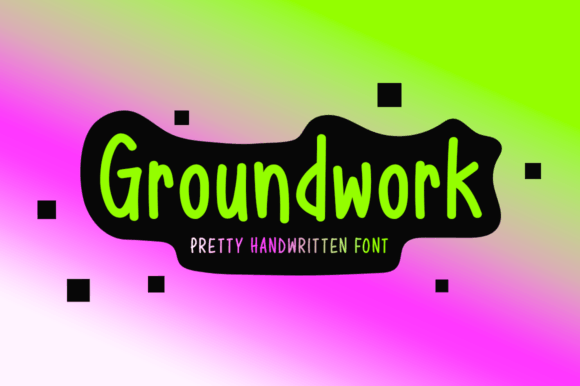
Introducing Groundwork Font: The Ultimate Handwritten Font for Modern Design
In the world of typography, a new font has emerged that is taking the design community by storm. Groundwork Font is a newly created, exquisitely crafted handwritten font that embodies style and originality. This flexible font is a fantastic option for both digital and print design needs because it works well for a broad range of projects. From stationery and logos to t-shirts, print materials, website headers, posters, album covers, and even picture frames, Groundwork Font is the perfect choice for designers looking to add a touch of elegance and sophistication to their work.
Key Features of Groundwork Font
- Handwritten Style: Groundwork Font boasts a beautiful, handwritten style that adds a personal touch to any design project.
- Flexibility: This font is incredibly versatile and can be used for a wide range of projects, from digital designs to print materials.
- Originality: Groundwork Font is a unique and original font that will help your designs stand out from the crowd.
- Elegance: The font’s elegant and refined style makes it perfect for designs that require a touch of sophistication.
Design Applications for Groundwork Font
Groundwork Font is an incredibly versatile font that can be used for a wide range of design applications. Here are some of the many ways you can use this font:
- Stationery: Use Groundwork Font to create beautiful and elegant stationery, including letterheads, envelopes, and business cards.
- Logos: This font is perfect for creating unique and memorable logos that will help your brand stand out.
- T-Shirts: Groundwork Font can be used to create stunning t-shirt designs that will appeal to anyone who loves elegant typography.
- Print Materials: Use this font to create eye-catching print materials, including brochures, flyers, and posters.
- Website Headers: Add a touch of elegance to your website with Groundwork Font, perfect for headers and titles.
- Posters: This font is perfect for creating stunning posters that will grab attention and leave a lasting impression.
- Album Covers: Use Groundwork Font to create beautiful and eye-catching album covers that will stand out in a crowded music market.
- Picture Frames: Add a touch of elegance to your picture frames with Groundwork Font, perfect for creating beautiful and unique gifts.
Typography Tips for Using Groundwork Font
To get the most out of Groundwork Font, here are some typography tips to keep in mind:
- Use it sparingly: Groundwork Font is a beautiful font, but it can be overwhelming if used too much. Use it sparingly to create emphasis and add elegance to your designs.
- Pair it with other fonts: Experiment with pairing Groundwork Font with other fonts to create a unique and visually appealing typography combination.
- Adjust the size and color: Play around with different sizes and colors to create visual interest and add depth to your designs.
- Use it for headlines and titles: Groundwork Font is perfect for headlines and titles, where its elegant and refined style can really shine.
Design Inspiration with Groundwork Font
Groundwork Font is a font that inspires creativity and elegance. Here are some design inspiration ideas to get you started:
- Create a luxurious brand identity: Use Groundwork Font to create a luxurious brand identity that exudes elegance and sophistication.
- Design a beautiful website: Add a touch of elegance to your website with Groundwork Font, perfect for creating a stunning website that will leave a lasting impression.
- Make a statement with your packaging: Use Groundwork Font to create eye-catching packaging that will stand out on store shelves.
- Create a unique t-shirt design: Groundwork Font is perfect for creating unique and stylish t-shirt designs that will appeal to anyone who loves elegant typography.
In conclusion, Groundwork Font is a beautiful and versatile handwritten font that embodies style and originality. Its flexibility and elegance make it perfect for a wide range of design applications, from digital designs to print materials. With its key features, design applications, typography tips, and design inspiration ideas, Groundwork Font is the perfect choice for designers looking to add a touch of sophistication and elegance to their work.